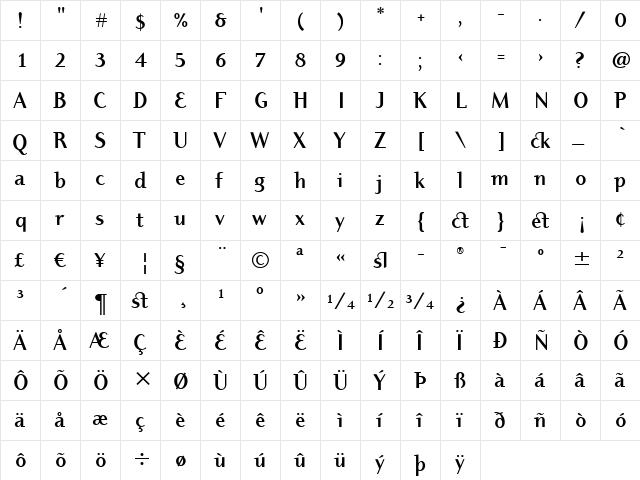
Dyadis ITC Bold
Bold · International Typeface Corporation  ·
Foundry International Typeface Corporation
Design Context for Dyadis ITC Typeface
Dyadis ITC takes a measured approach to typography — its balanced proportions and neutral character make it a reliable workhorse for both digital and print work. The heavy weight commands attention and anchors typographic hierarchies.